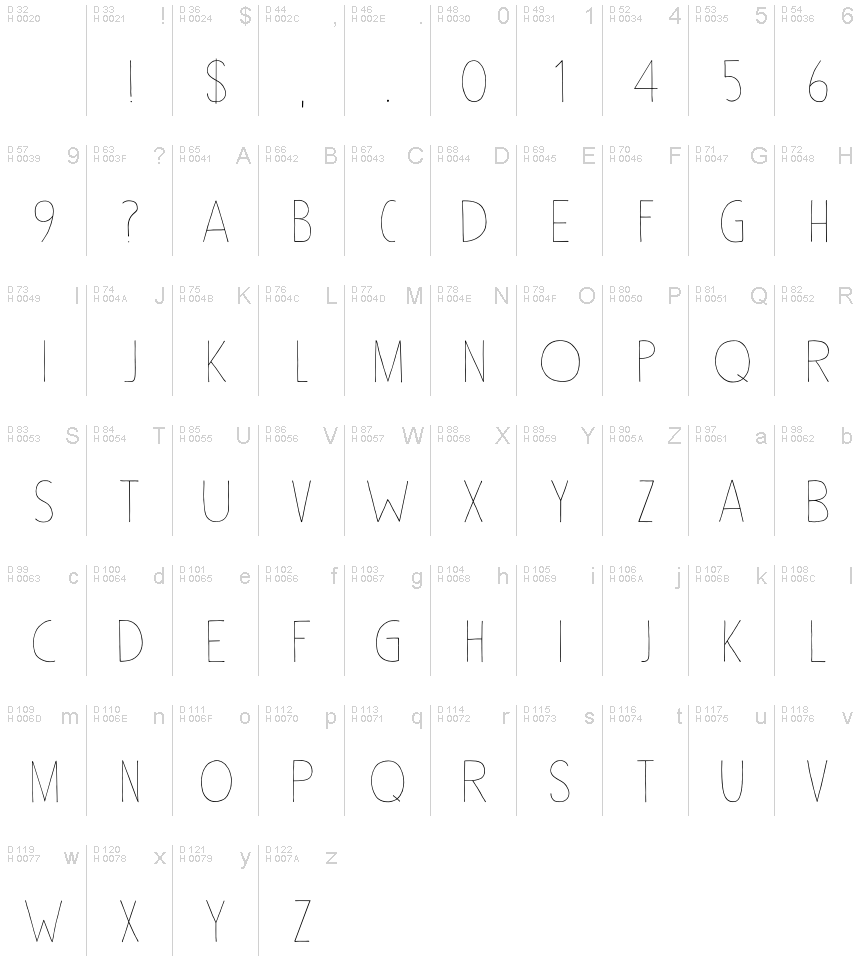
Insect Jar DEMO Regular
Insect Jar font, designed by David Kerkhoff for Table Kitchen Type Foundry, exudes a whimsical charm that captivates with its playful handwritten style. The delicately light strokes and slightly irregular forms create a sense of warmth and authenticity, making it feel personal and inviting. Its unique character lends itself beautifully to projects aimed at capturing attention, perfect for everything from artisanal branding to imaginative children’s book illustrations.
Ideal for invitations or creative marketing materials, Insect Jar's expressive appearance enhances visual storytelling while maintaining an approachable aesthetic. It balances artistry with readability, ensuring that any message stands out while resonating deeply with the audience. Whether used in digital or print formats, this font is sure to inspire creativity and engage viewers in delightful ways.